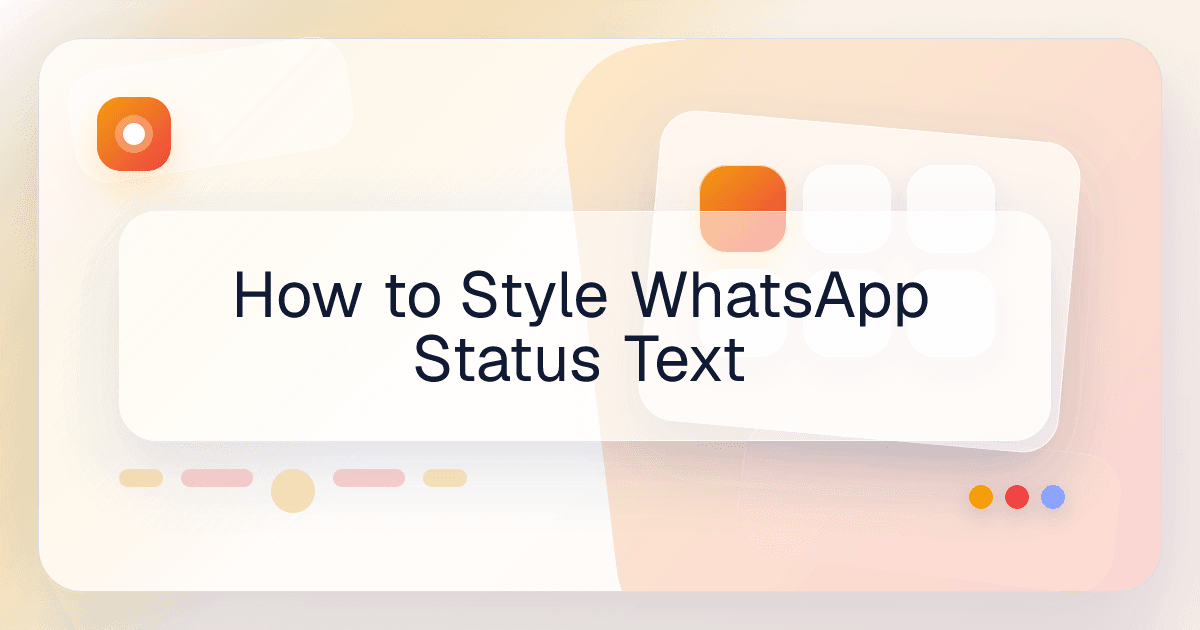
How to Style WhatsApp Status Text
WhatsApp status styling works best when it stays personal and readable. Simple bold, italic, and lightly framed variants usually look better than dramatic or highly distorted text.
Choose styles built for readability
WhatsApp statuses are often consumed quickly on mobile. Cleaner Unicode styles preserve the mood while keeping the message readable at a glance.
Keep the message short
Shorter status lines look stronger, wrap more predictably, and let the styling support the message instead of overwhelming it.
Use emoji and symbols lightly
A small accent can help a status feel more expressive, but using too many decorative elements can make it feel cluttered.
What styles work best for WhatsApp status text?
Bold, italic, underline, and cleaner WhatsApp-friendly styles usually work best because they stay readable in short status lines.
Can I use decorative symbols in WhatsApp status text?
Yes, but sparingly. Small accents tend to work better than stacking multiple decorative symbols into one short line.